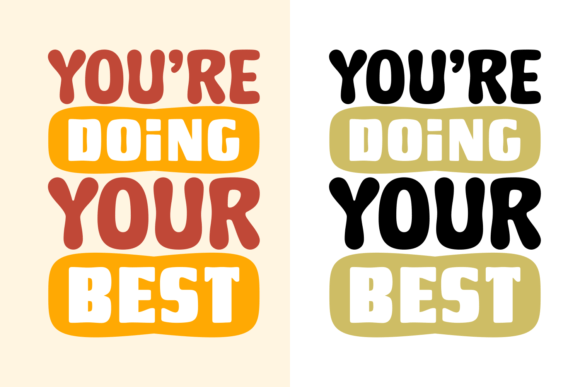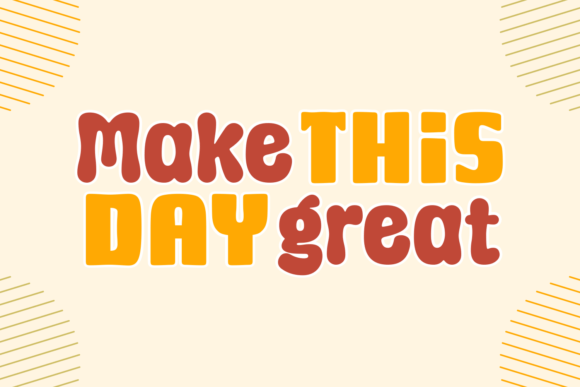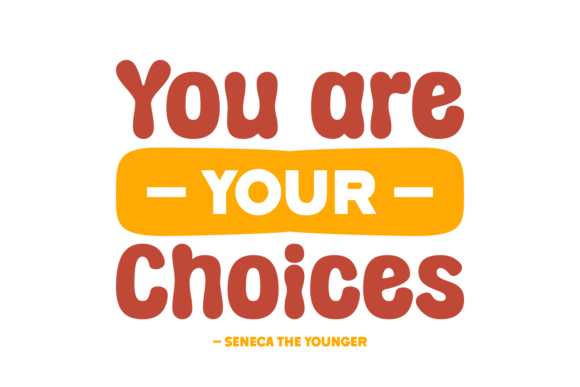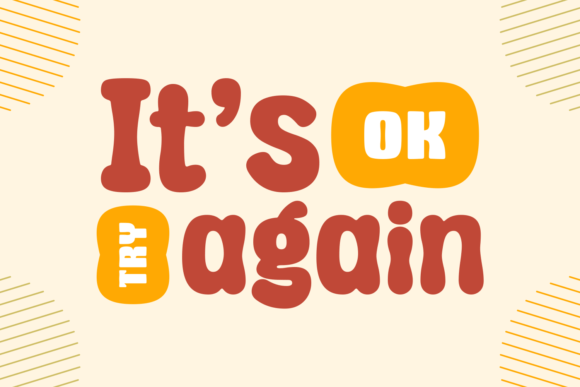
Introducing Goody Bright Font: The Ultimate Retro Display Font
Are you looking for a font that can add a touch of playfulness and retro charm to your typography designs? Look no further than Goody Bright Font! This thick and playful display font is perfect for designers and crafters who want to create eye-catching and nostalgic designs. In this article, we’ll dive into the features and benefits of Goody Bright Font, and explore how you can use it to elevate your design projects.
The Characteristics of Goody Bright Font
Goody Bright Font is a bold and vibrant display font that exudes a fun and carefree vibe. Its thick lines and playful curves make it perfect for creating attention-grabbing headlines, titles, and slogans. The font’s retro style is reminiscent of the 1960s and 1970s, with a groovy feel that’s sure to transport your designs back in time.
What Makes Goody Bright Font So Versatile?
One of the best things about Goody Bright Font is its versatility. This font can be used for a wide range of design projects, from posters and flyers to apparel and signage. It’s perfect for:
- Posters: Create eye-catching posters for events, promotions, or advertising campaigns.
- Apparel: Design fun and playful t-shirts, hoodies, and hats for kids and adults alike.
- Signage: Use Goody Bright Font to create bold and attention-grabbing signs for businesses, events, or exhibitions.
- Kids’ t-shirts: This font is perfect for designing fun and playful tees for kids.
- Cards: Add a personal touch to your greeting cards, invitations, and postcards with Goody Bright Font.
Why Choose Goody Bright Font?
So, why should you choose Goody Bright Font for your design projects? Here are just a few reasons:
- Unique and eye-catching: Goody Bright Font is a one-of-a-kind font that’s sure to grab attention.
- Retro charm: This font’s retro style is perfect for designers who want to add a touch of nostalgia to their designs.
- Easy to read: Despite its bold and playful style, Goody Bright Font is easy to read, even at smaller sizes.
- Versatile: This font can be used for a wide range of design projects, from posters to apparel.
Tips for Using Goody Bright Font
Here are a few tips for getting the most out of Goody Bright Font:
- Use it as a headline font: Goody Bright Font is perfect for headlines and titles, where its bold and playful style can really shine.
- Pair it with a simple font: For body text, pair Goody Bright Font with a simple and easy-to-read font to create contrast and visual interest.
- Experiment with colors: Goody Bright Font looks great in bold and bright colors, so don’t be afraid to experiment and find the perfect hue for your design.
Goody Bright Font is a fantastic addition to any designer’s toolkit. Its unique blend of playfulness and retro charm makes it perfect for a wide range of design projects, from posters to apparel. With its ease of use, versatility, and eye-catching style, Goody Bright Font is sure to become a favorite font in your collection. So why not give it a try and see how it can elevate your designs?